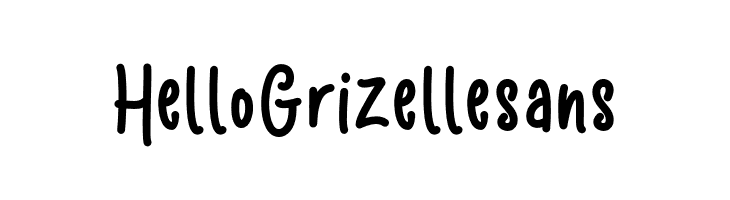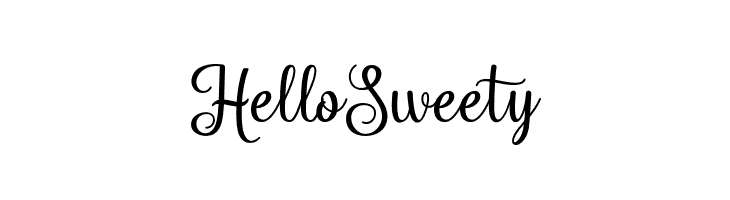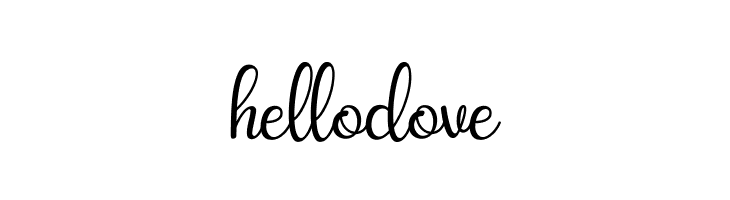
A charming script font with a handwritten, elegant style.
A graceful script font with flowing, connected letters and a modern calligraphic style.
A graceful and flowing script font with elegant, cursive strokes.
A playful, handwritten font with smooth, rounded edges and a whimsical style.
A playful and elegant cursive script with decorative swirls.
A playful and elegant script font with decorative swirls and loops.
A playful and whimsical font with dynamic, slanted letterforms.
An elegant, cursive script font with fluid, interconnected characters.
An elegant, flowing script font with a handwritten style.